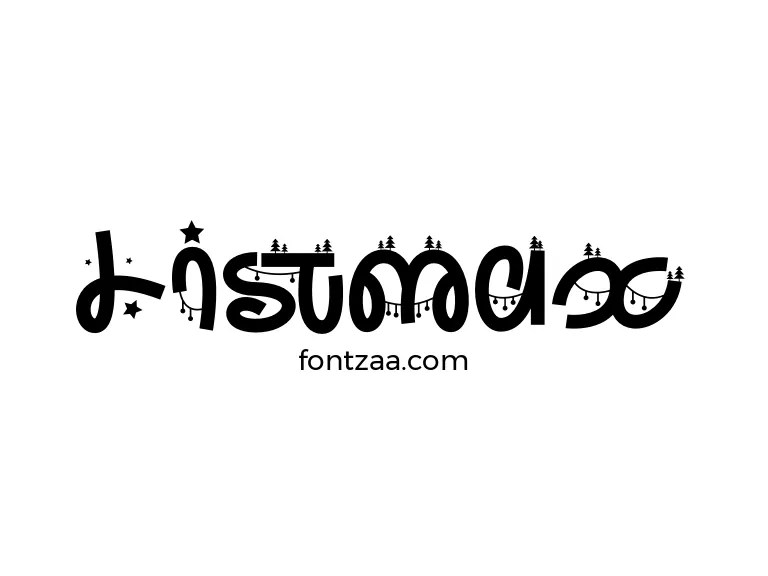
Listmax Font combines distinctive character shapes with a elegant appearance suited to display-focused design. For projects that need typography with a stronger identity, Listmax Font offers a elegant direction suited to creative display work. The typeface can change considerably depending on tracking, scale, alignment, background and surrounding imagery. Using generous space around the lettering can help the details of the typeface remain visible instead of competing with other elements. Testing several arrangements before choosing the final version can reveal which characteristics of the typeface work best. Creative uses may range from invitations, wedding stationery, signatures, quotes and elegant branding, with different results depending on scale and layout. Designers should evaluate the typeface inside the real project because a standalone preview cannot show every possible visual combination. For layouts containing longer information, pairing it with a simpler supporting typeface can improve readability and hierarchy. The designer or publisher information available for this typeface is Jada Akbal. The available licensing label is Free for personal use, but redistribution and commercial permissions should always be confirmed from the original source. Testing the font with the actual project text can provide a much better impression than viewing isolated sample characters.
Listmax Font brings a elegant personality to typography and gives designers a flexible starting point for headlines, branding and promotional layouts. The font can work as the primary visual element in a minimal layout or as part of a more detailed composition. Different color combinations can make the same font feel subtle, energetic, premium or highly decorative. Using generous space around the lettering can help the details of the typeface remain visible instead of competing with other elements. Its display-focused appearance makes it worth testing in invitations, wedding stationery, signatures, quotes and elegant branding. Designers should evaluate the typeface inside the real project because a standalone preview cannot show every possible visual combination. Keeping secondary typography simple often allows the distinctive qualities of the main font to remain more visible. The available source information lists Jada Akbal as the designer or publisher. License details are currently listed as Free for personal use. Users should verify the supplied documentation before using the font in products or paid projects. Testing the font with the actual project text can provide a much better impression than viewing isolated sample characters.
With its distinctive letterforms, Listmax Font can introduce a elegant character into digital and print projects. Using generous space around the lettering can help the details of the typeface remain visible instead of competing with other elements. The font can work as the primary visual element in a minimal layout or as part of a more detailed composition. Different color combinations can make the same font feel subtle, energetic, premium or highly decorative. Creative uses may range from invitations, wedding stationery, signatures, quotes and elegant branding, with different results depending on scale and layout. Keeping secondary typography simple often allows the distinctive qualities of the main font to remain more visible. A clean serif or sans serif companion can handle smaller text while this font remains focused on headlines and key messages. Source metadata currently associates the font with Jada Akbal. License details are currently listed as Free for personal use. Users should verify the supplied documentation before using the font in products or paid projects. The most effective treatment will vary by project, so designers should compare several versions before finalizing the artwork.
Listmax Font Family
The Listmax Font Family gives designers a flexible display option that can be adapted through changes in size, spacing, alignment and color. With its distinctive letterforms, Listmax Font can introduce a elegant character into font-family exploration. Testing several arrangements before choosing the final version can reveal which characteristics of the typeface work best. The font can work as the primary visual element in a minimal layout or as part of a more detailed composition. Different color combinations can make the same font feel subtle, energetic, premium or highly decorative. Possible applications include invitations, wedding stationery, signatures, quotes and elegant branding. Designers should evaluate the typeface inside the real project because a standalone preview cannot show every possible visual combination. A clean serif or sans serif companion can handle smaller text while this font remains focused on headlines and key messages. The designer or publisher information available for this typeface is Jada Akbal. License details are currently listed as Free for personal use. Users should verify the supplied documentation before using the font in products or paid projects. The most effective treatment will vary by project, so designers should compare several versions before finalizing the artwork.
Designers exploring a elegant typeface can use Listmax Font to add a more recognizable visual voice to spacing, contrast, scale and layout decisions. The font can work as the primary visual element in a minimal layout or as part of a more detailed composition. Testing several arrangements before choosing the final version can reveal which characteristics of the typeface work best. Using generous space around the lettering can help the details of the typeface remain visible instead of competing with other elements. Creative uses may range from invitations, wedding stationery, signatures, quotes and elegant branding, with different results depending on scale and layout. Previewing the final layout on both large and small screens helps identify spacing and readability problems early. A clean serif or sans serif companion can handle smaller text while this font remains focused on headlines and key messages. The designer or publisher information available for this typeface is Jada Akbal. License details are currently listed as Free for personal use. Users should verify the supplied documentation before using the font in products or paid projects. A few quick layout variations can help determine where the font creates the strongest visual result.
Branding Ideas With Listmax Font
Designers exploring a elegant typeface can use Listmax Font to add a more recognizable visual voice to logos, wordmarks and visual identity systems. Using generous space around the lettering can help the details of the typeface remain visible instead of competing with other elements. Testing several arrangements before choosing the final version can reveal which characteristics of the typeface work best. Different color combinations can make the same font feel subtle, energetic, premium or highly decorative. The font can be considered for projects such as invitations, wedding stationery, signatures, quotes and elegant branding. A clean serif or sans serif companion can handle smaller text while this font remains focused on headlines and key messages. For layouts containing longer information, pairing it with a simpler supporting typeface can improve readability and hierarchy. Source metadata currently associates the font with Jada Akbal. The listed license is Free for personal use, although users should still review the original font package before commercial use. Testing the font with the actual project text can provide a much better impression than viewing isolated sample characters.
Using Listmax Font for Posters and Social Media
Listmax Font brings a elegant personality to typography and gives designers a flexible starting point for posters, campaigns, thumbnails and promotional content. Different color combinations can make the same font feel subtle, energetic, premium or highly decorative. The font can work as the primary visual element in a minimal layout or as part of a more detailed composition. Using generous space around the lettering can help the details of the typeface remain visible instead of competing with other elements. Possible applications include invitations, wedding stationery, signatures, quotes and elegant branding. For layouts containing longer information, pairing it with a simpler supporting typeface can improve readability and hierarchy. Keeping secondary typography simple often allows the distinctive qualities of the main font to remain more visible. According to the available font information, the typeface is associated with Jada Akbal. The listed license is Free for personal use, although users should still review the original font package before commercial use. Its final appearance will depend heavily on the surrounding colors, imagery, spacing and supporting typography.
Creative Uses for Listmax Font
Listmax Font brings a elegant personality to typography and gives designers a flexible starting point for practical ways designers can use the typeface. Testing several arrangements before choosing the final version can reveal which characteristics of the typeface work best. Its letter shapes become especially noticeable at larger sizes, where spacing and proportions can be explored more clearly. Using generous space around the lettering can help the details of the typeface remain visible instead of competing with other elements. Creative uses may range from invitations, wedding stationery, signatures, quotes and elegant branding, with different results depending on scale and layout. Previewing the final layout on both large and small screens helps identify spacing and readability problems early. A clean serif or sans serif companion can handle smaller text while this font remains focused on headlines and key messages. The designer or publisher information available for this typeface is Jada Akbal. The available licensing label is Free for personal use, but redistribution and commercial permissions should always be confirmed from the original source. Experimenting directly in the intended design is usually the best way to judge whether the typeface suits the project.